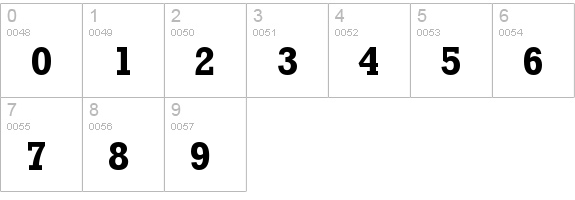
Astute SSi Bold is a strong, high-contrast variant in the Astute typeface family \xE2\x80\x94 well suited to headlines, attention-grabbing titles, and strong calls-to-action.